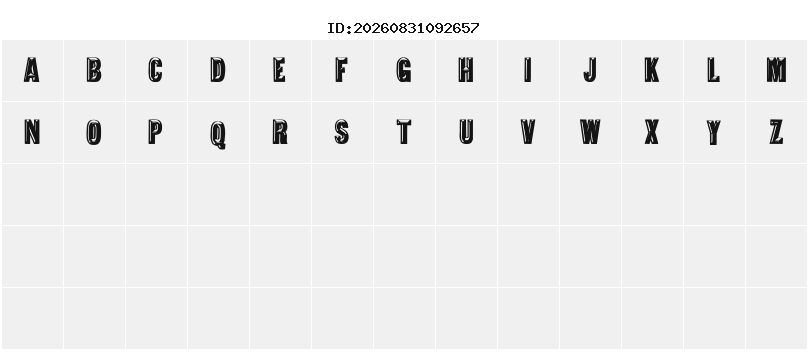
Tejaratchi Th bold Preview
About Tejaratchi Th bold.ttf
Tejaratchi Th bold.ttf is a modern, elegant sans-serif font designed for ultimate readability and visual harmony. Perfect for branding, headlines, web design, and print materials.